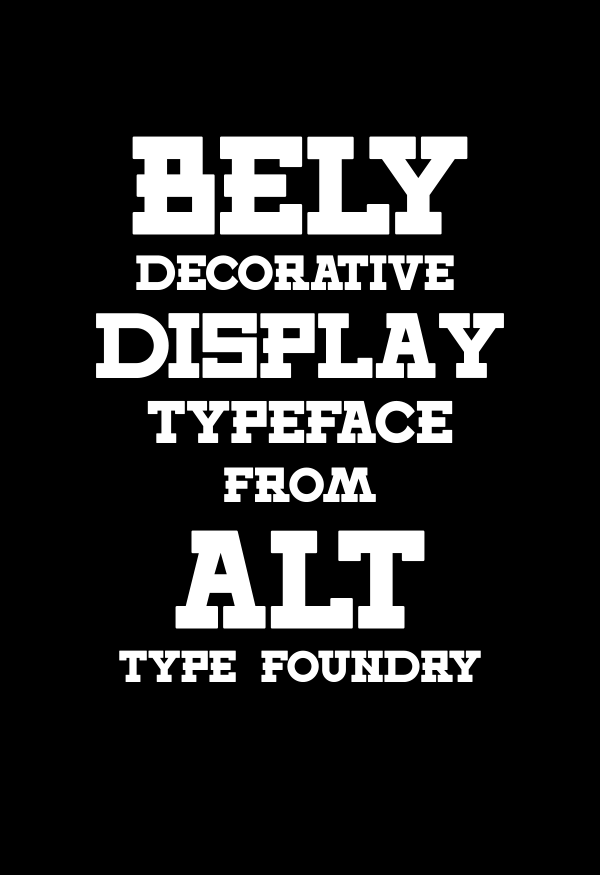
Bely Typeface is my brand new all caps slab font. I wanted to create something different I really love to experiment with new things and I really enjoy making this new font. Bely comes in Latin and Greek I made a promise to myself to start making more Greek fonts I'm Greek after all.